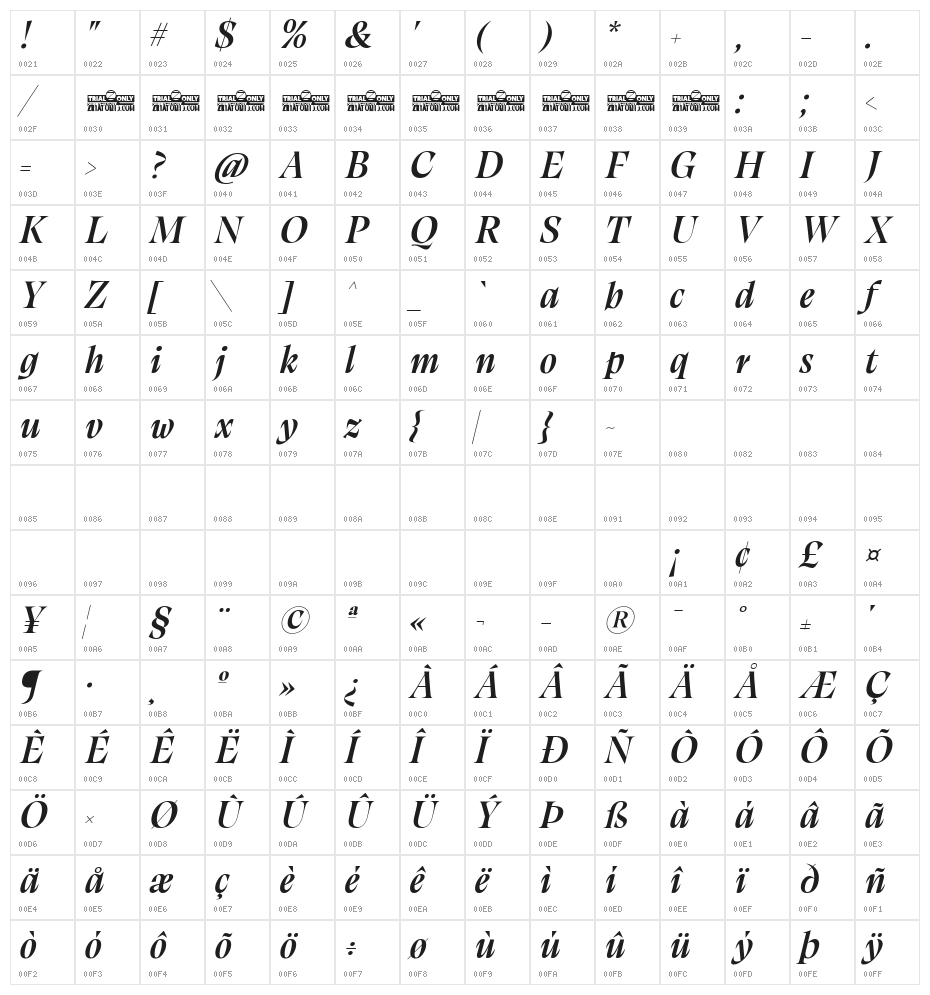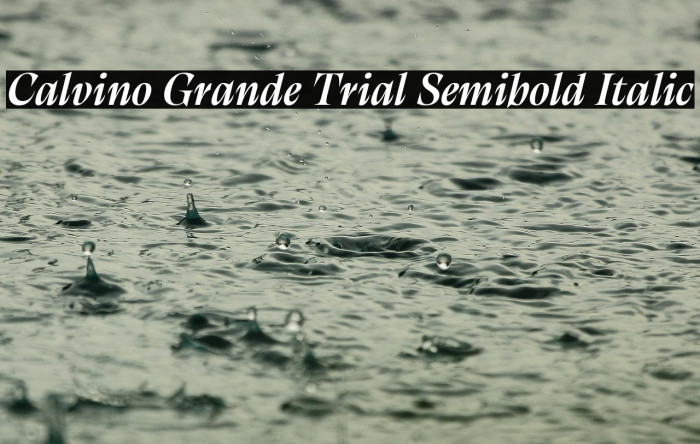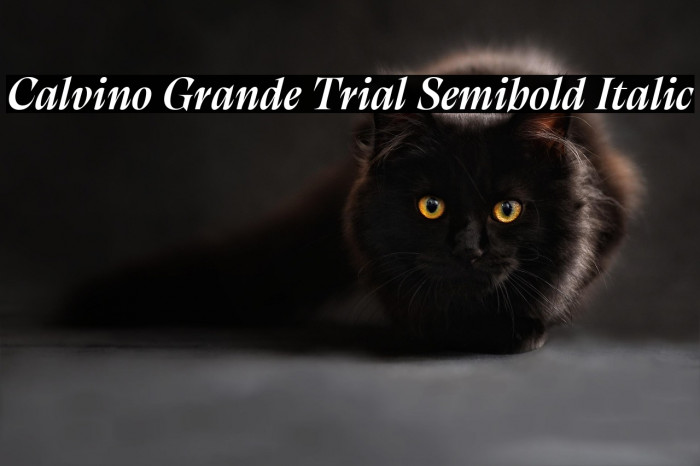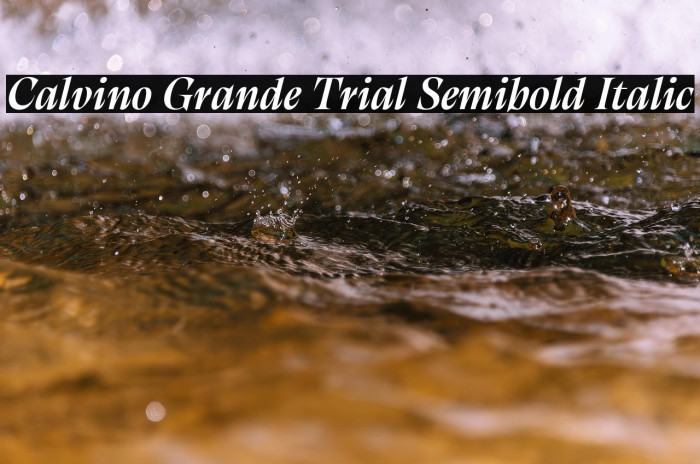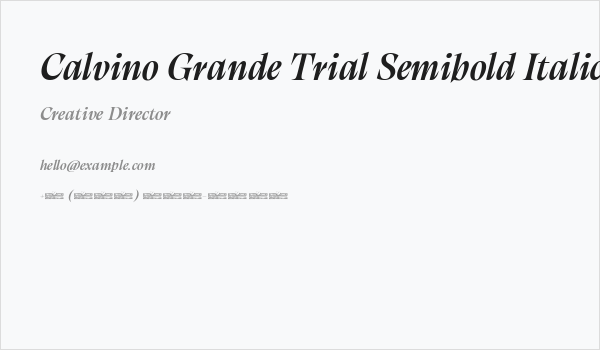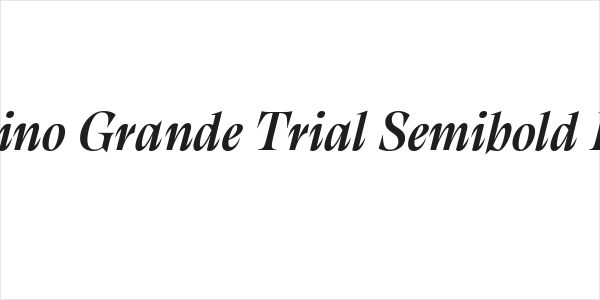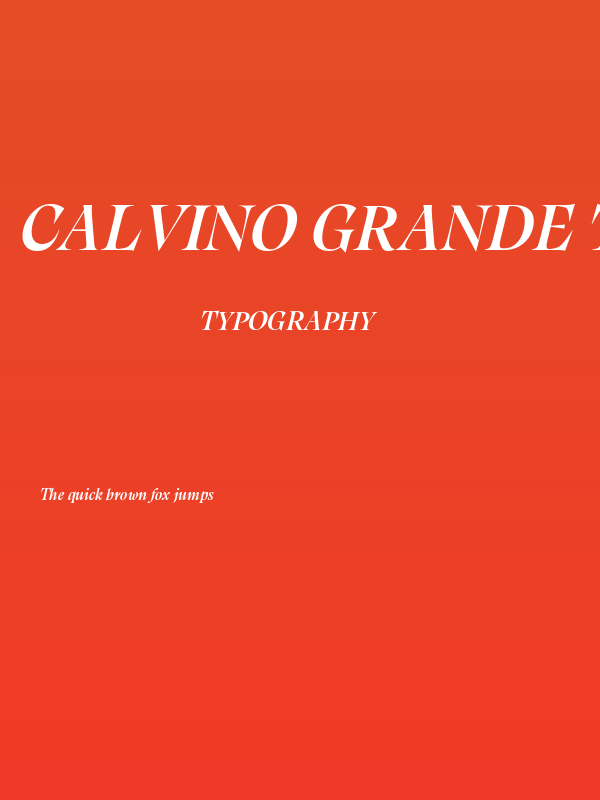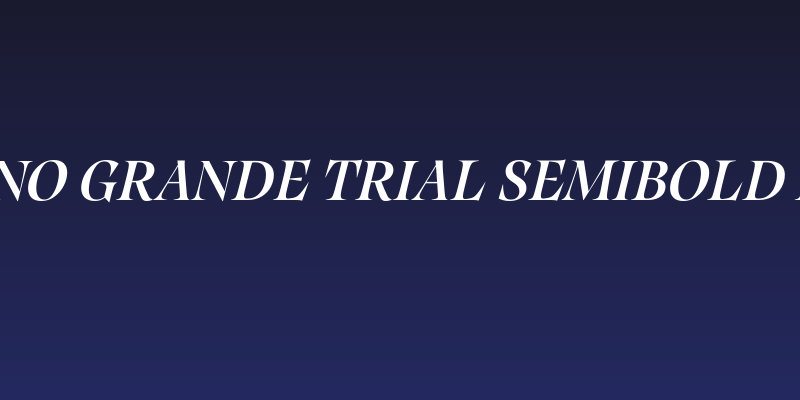
Calvino Grande Trial Semibold Italic Font
Calvino Grande Trial Semibold Italic Description
This font exhibits a sophisticated and elegant style, characterized by its semi-bold weight and italicized form. The letters have a distinct slant, enhancing their dynamic appearance. The strokes are moderately thick, providing a balanced contrast that ensures readability while maintaining a stylish flair. The serifs are pronounced yet refined, adding a touch of classic elegance. This typeface is versatile, suitable for both modern and traditional designs. Its overall aesthetic is both timeless and contemporary, making it an excellent choice for a variety of applications.
| Use Case | Headlines, Logos, Editorial design |
| Proposed Projects | Ideal for branding, editorial design, book covers, and high-end product packaging. |